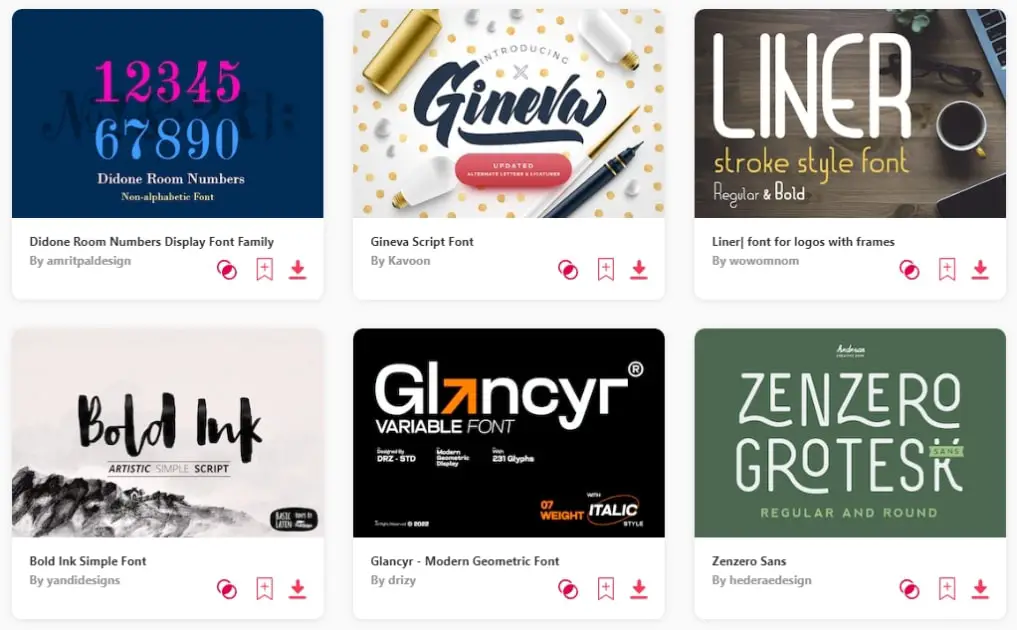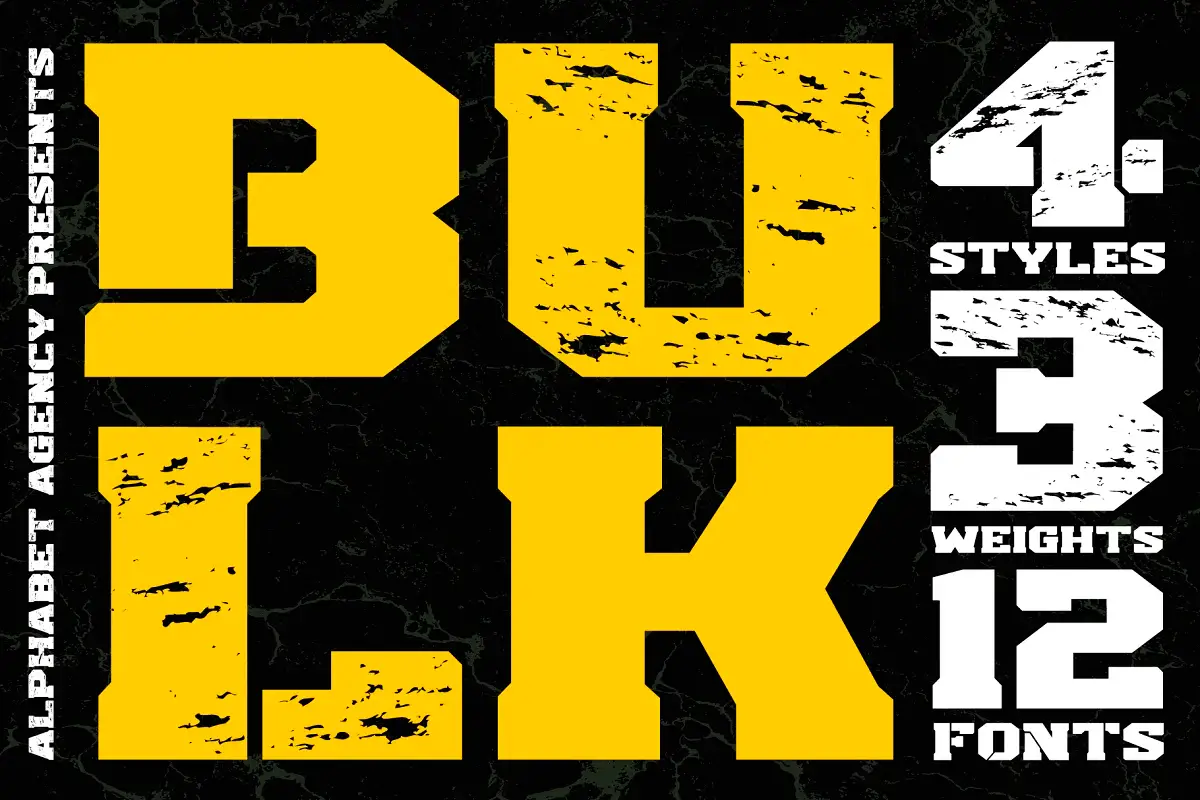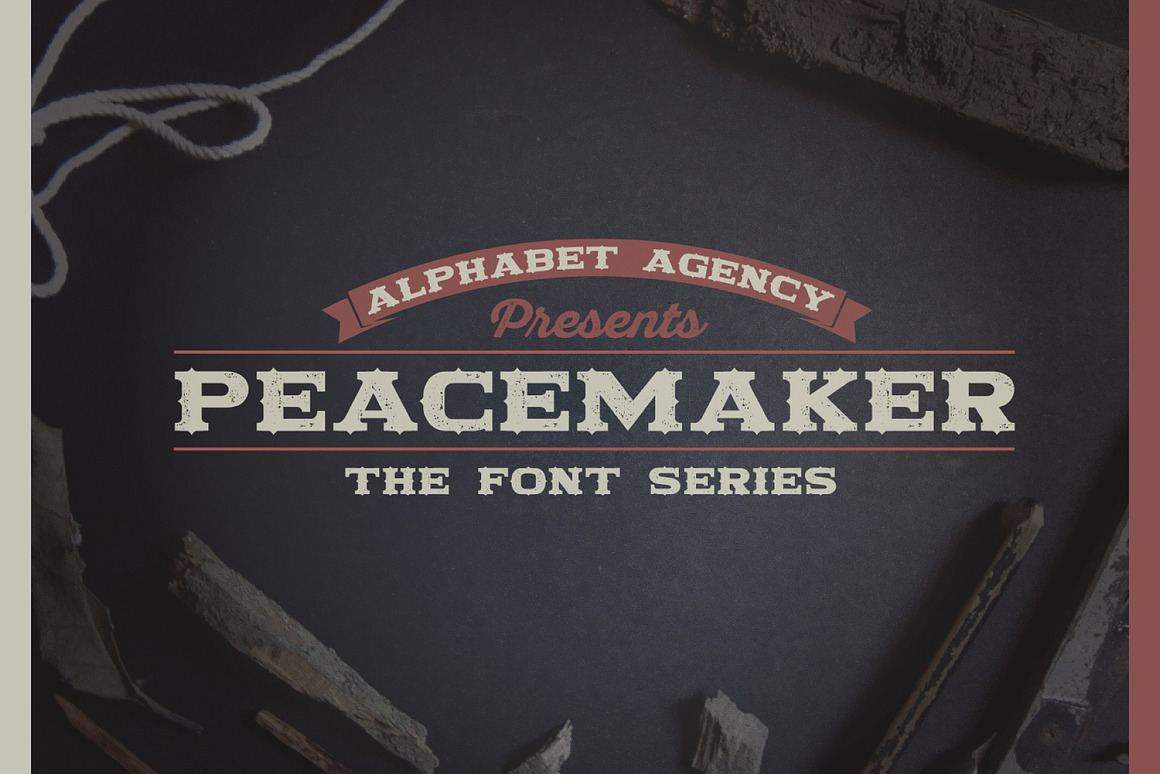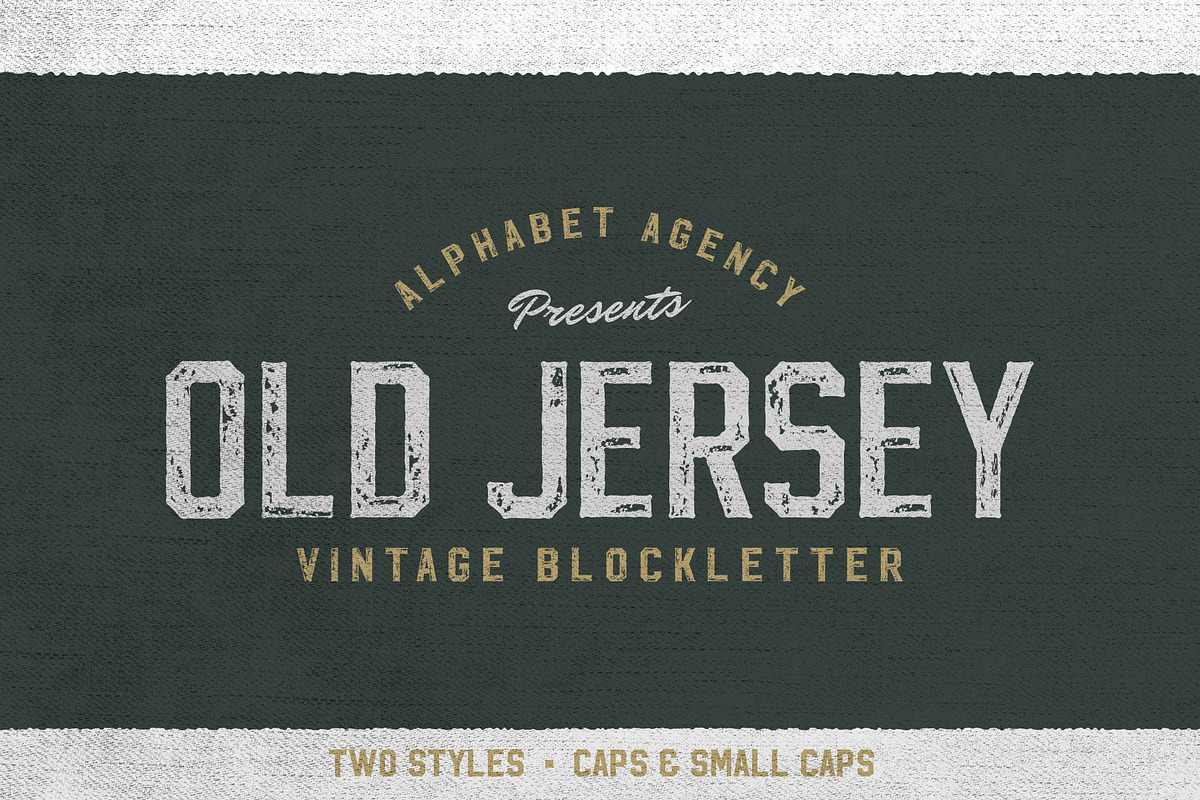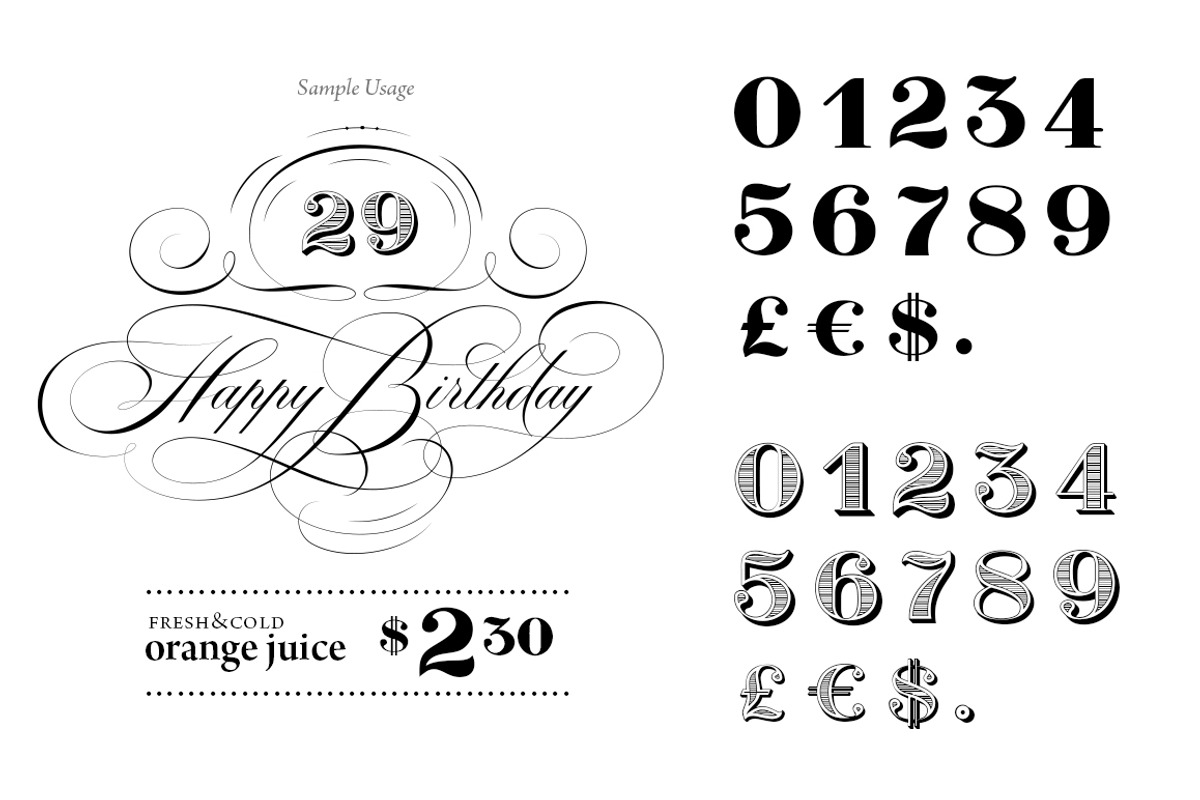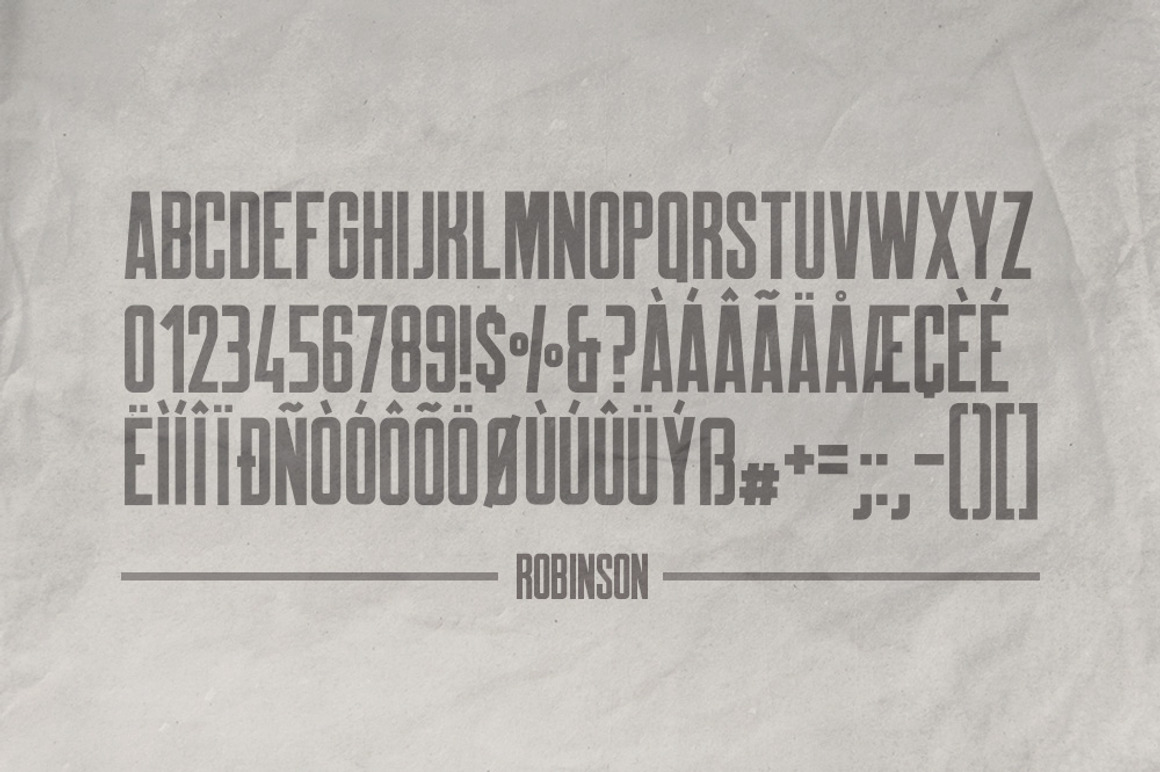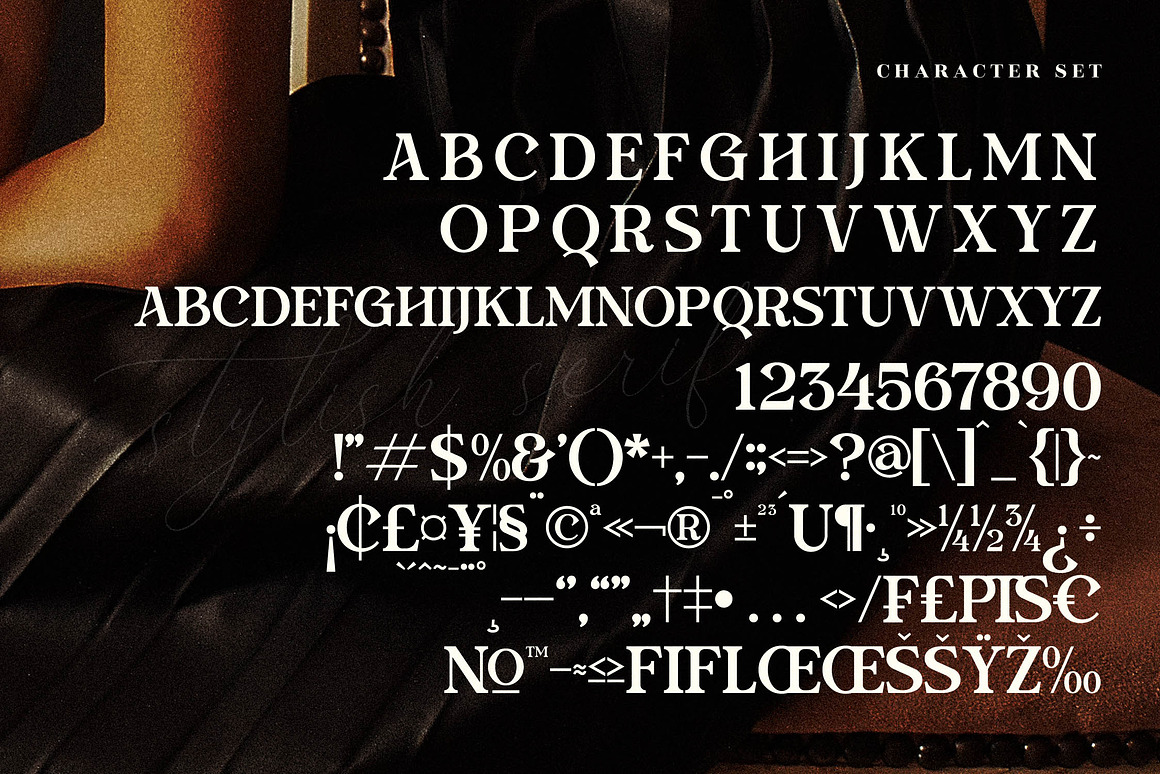
Check out these 15 best number fonts! These fonts are perfect for any project and come in various styles to suit your needs. Whether you’re looking for a traditional font or something more modern, we’ve covered you.
What Are Number Fonts?
Number fonts are a type of font that is explicitly designed for numbers. These fonts can be used for various purposes, such as displaying numerical data or creating numbered lists.
Number fonts come in a wide range of styles, from traditional and conservative to modern and funky. No matter what your project needs, there’s a number font out there, that’s perfect for you.
So why use a number font?
There are a few reasons.
First, number fonts can make data easier to read and understand. If you’re displaying numbers in a report or presentation, using a clear and legible font can help your audience comprehend the information more easily.
Additionally, number fonts can add visual interest to lists and text-heavy content. If you’re looking to add a bit of personality to your writing, using a fun and unique number font is a great way to do it.
The Significance of Choosing Number Fonts
Nearly every typeface you find online includes a numeral set spanning from 0 to 9. Yet, not all fonts feature numbers that harmonize seamlessly with the style of their alphabetic counterparts.
Consider, for instance, how some font creators inadvertently add ornate touches to numbers within a sans-serif font. Such decorative flourishes clash with the intended minimalist style, leaving a design looking less than professional. Imagine crafting a letterhead with phone numbers and addresses, only for the inconsistent numeric styling to disrupt the design’s cohesion.
When selecting a typeface for any creative endeavor—whether it’s a brand logo, letterhead, or even a T-shirt design—take a moment to inspect the numerals. Confirm that the numbers complement the letterforms, ensuring they contribute to a polished, unified aesthetic.
Below, we’ve highlighted a few fonts that strike an ideal balance between letter and numeral design.
How can you use number fonts?
There are a variety of ways that you can use number fonts to make your documents and designs look more professional. Here are some of the best ways to use number fonts:
1. Use number fonts for lists
Number fonts can be a great way to make lists more visually appealing. For example, creating a bulleted list can use a number font to make each bullet stand out more.
2. Use number fonts for headings and subheadings
Number fonts can also be used for headings and subheadings, which can help create a more hierarchical look for your document or design.
3. Use number fonts for callouts and annotations
Number fonts can be used for callouts and annotations in documents and designs. This can help to make your callouts and annotations more readable and easy to understand.
4. Use number fonts for infographics
Number fonts can be a great way to add visual interest to infographics. By using different number fonts for other elements of your infographic, you can create a more visually appealing and informative graphic.
5. Use number fonts for data visualizations
Number fonts can also be used for data visualizations. By using different number fonts for other elements of your data visualization, you can create a more visually appealing and informative graphic.
6. Use number fonts for presentation slides
Number fonts can be a great way to add visual interest to presentation slides. Using different number fonts for other slide elements can create a more visually appealing and informative presentation.
7. Use number fonts for posters and flyers
Number fonts can also be used for posters and flyers. By using different number fonts for various elements of your poster or flyer, you can create a more visually appealing and eye-catching design.
8. Use number fonts for website design
Number fonts can also be used in website design. By using different number fonts for other elements of your website, you can create a more visually appealing and user-friendly website.
9. Use number fonts for email design
Number fonts can also be used in email design. By using different number fonts for other elements of your email, you can create a more visually appealing and user-friendly email.